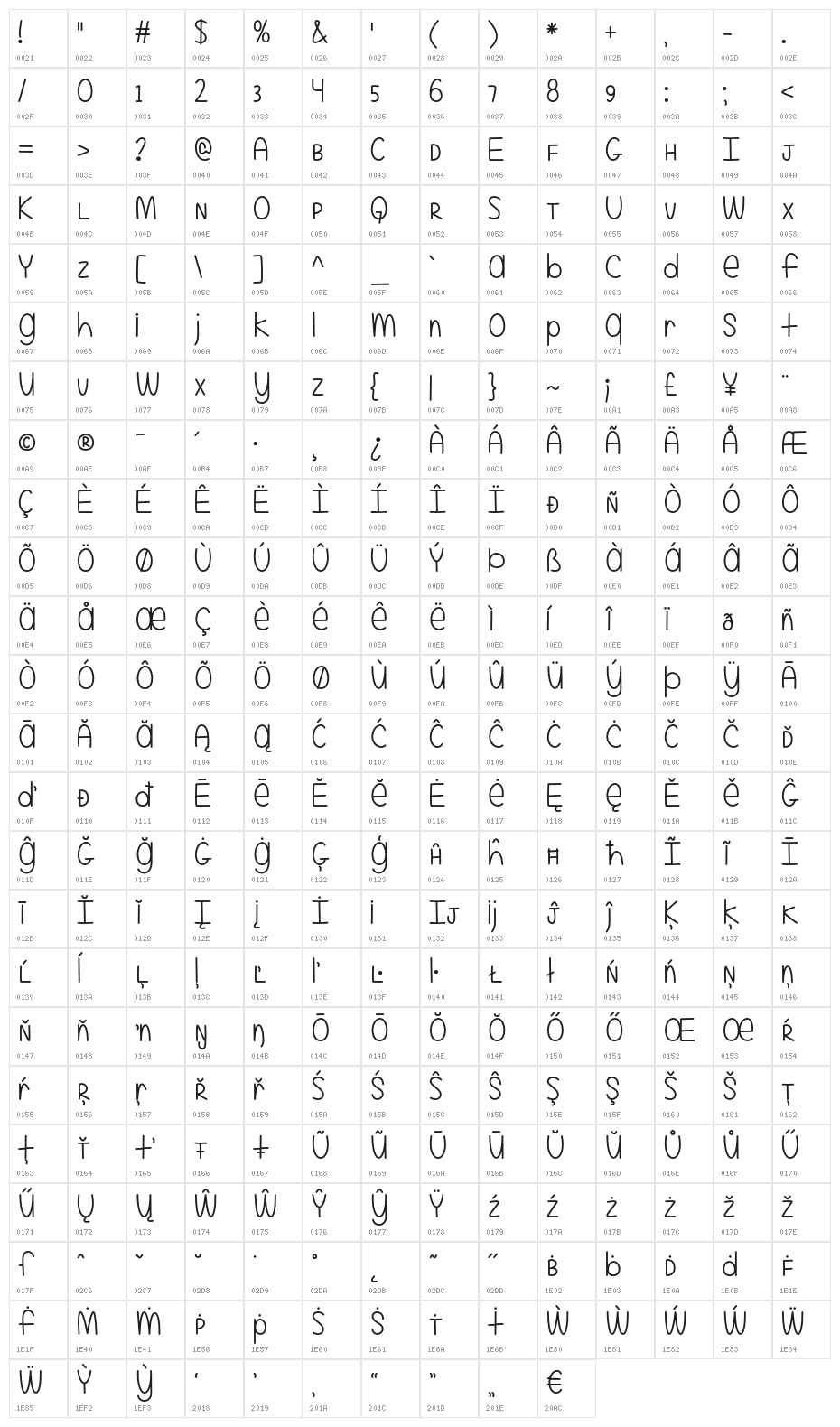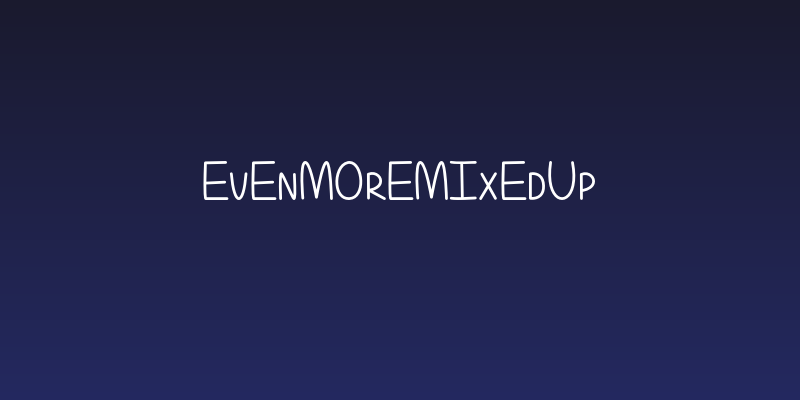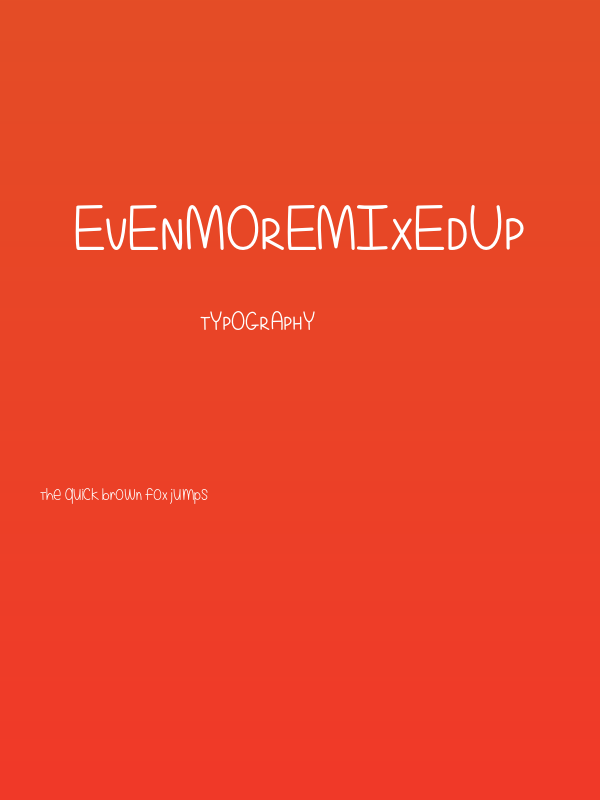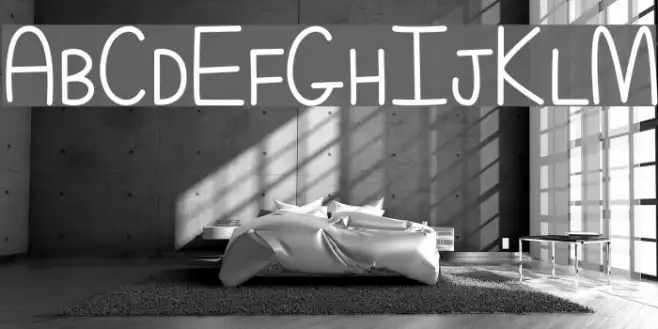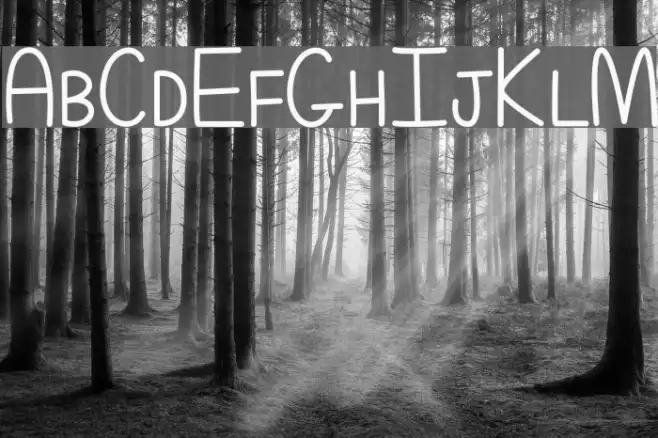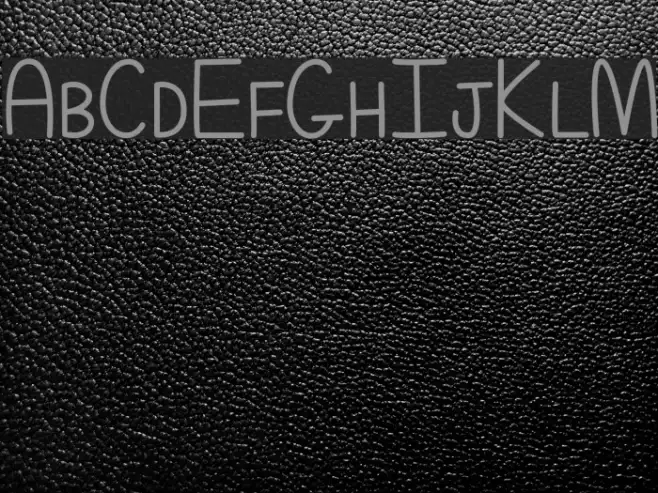
EvenMoreMixedUp Font
EvenMoreMixedUp Description
This playful and whimsical font features a handwritten style with rounded edges and a casual, friendly appearance. The characters are slightly irregular, adding to the charm and informal feel. The uppercase and lowercase letters are distinct yet harmonious, maintaining a consistent flow throughout. Numbers and special characters are designed to match the overall style, making the font versatile for various creative projects. The strokes are uniform in thickness, contributing to a balanced and cohesive look. This font is perfect for projects that require a personal touch or a fun, lighthearted vibe.
| Proposed Projects | Ideal for greeting cards, children's books, playful branding, and social media graphics. |